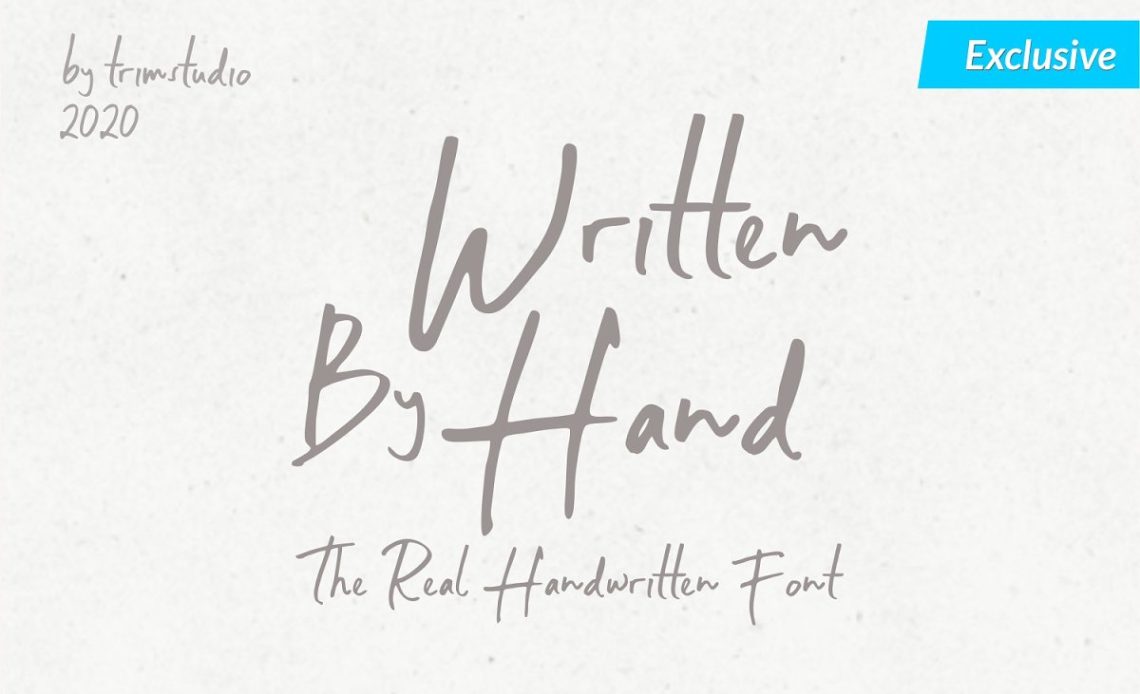
Introducing Written By Hand - Handwritten Font, the perfect addition to any designer or crafter's font collection. Created by Deri Kurnia, this handmade script font captures the realistic hand style of writing, adding a touch of authenticity to any project.
Whether you're creating an official letter or a personal invitation, Written By Hand is the best font for the job. Its messy style of writing gives your designs a unique and personalized touch, making them stand out from the rest.
Not only is Written By Hand aesthetically pleasing, but it is also incredibly versatile. Lightweight and containing all standard glyphs and punctuations, this font is perfect for any project you have in mind.
So, whether you're a graphic artist, a crafter, or just someone looking to add some personality to their designs, Written By Hand is the perfect font for you. Don't miss out on the opportunity to elevate your designs with this eye-catching and unique font.